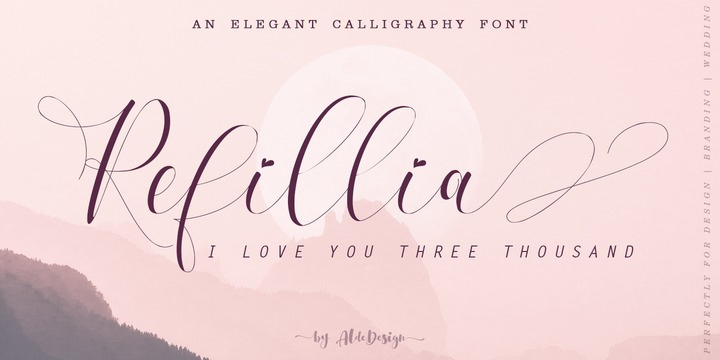
Refillia Calligraphy Font
Refillia Calligraphy Font is ideal for elegant wedding invitations, luxury branding projects, handwritten letter designs, romantic greeting cards, boutique logos, artisanal product packaging, sophisticated stationery, and premium lifestyle branding.
This exciting Refillia Calligraphy Font enchants viewers with its flowing, handcrafted letterforms that capture the timeless beauty of traditional calligraphy while offering modern versatility and digital functionality. The font's graceful curves and artistic flourishes make it an exceptional choice for projects requiring elegance, romance, and sophisticated personal touch that resonates with discerning audiences.
The Refillia Calligraphy Font family encompasses various stylistic alternatives including Regular, Ornate, Swash, Flourished, and Decorative variants, providing designers with extensive options for creating personalized and visually stunning typographic compositions with authentic handwritten appeal.
The romantic character of Refillia Calligraphy Font makes it particularly appealing for wedding planners, luxury service providers, artisanal businesses, and premium lifestyle brands that need to communicate intimacy, craftsmanship, and exclusive quality. Its handwritten nature creates emotional connections with audiences who value authenticity and personal attention.
Typography artists choose Refillia Calligraphy Font for its authentic calligraphic flow and exceptional attention to detail. The font maintains its handcrafted charm across various applications, from intimate invitation cards to elegant storefront signage, ensuring consistent artistic quality and sophisticated visual appeal.
The versatile applications of Refillia Calligraphy Font extend from personal correspondence to high-end commercial branding, maintaining its elegant character across different scales and contexts. This adaptability makes it valuable for comprehensive brand systems that require consistent artistic expression and sophisticated visual communication.
Luxury brands utilize Refillia Calligraphy Font to create distinctive identities that communicate exclusivity, craftsmanship, and personal service. The typeface's handwritten elegance helps establish premium positioning while appealing to consumers who appreciate artisanal quality, traditional craftsmanship, and personalized luxury experiences in their purchasing decisions.